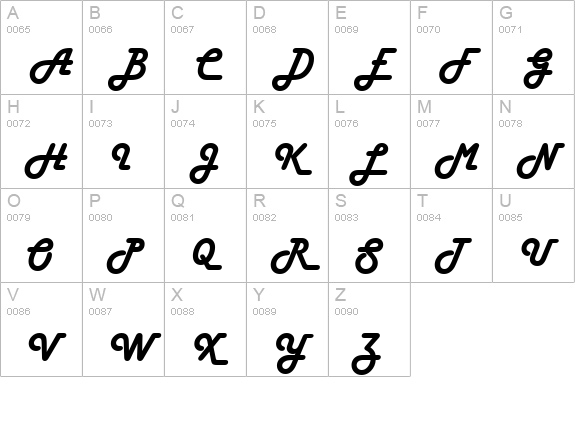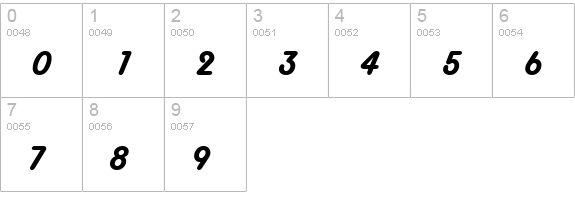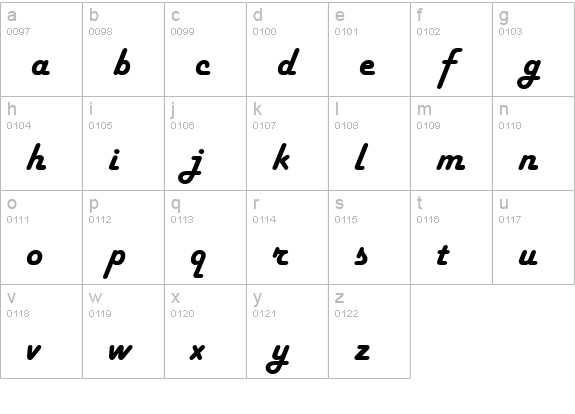
HelenaSoft Italic Font Details
HelenaSoft Italic is a distinctive, italic variant in the HelenaSoft typeface family \xE2\x80\x94 well suited to design and typography projects.